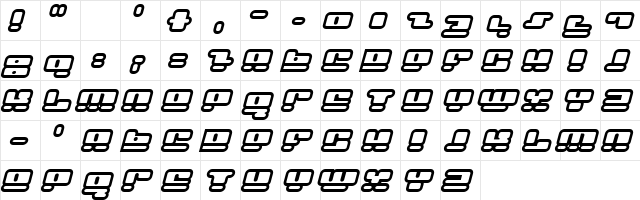
Face plant hollow 2 Italic
Design Context for Face plant hollow 2 Typeface
Face plant hollow 2 is a composed and adaptable typeface that performs quietly and consistently across a wide range of design contexts. Its italic angle brings a sense of urgency and motion to the letterforms.